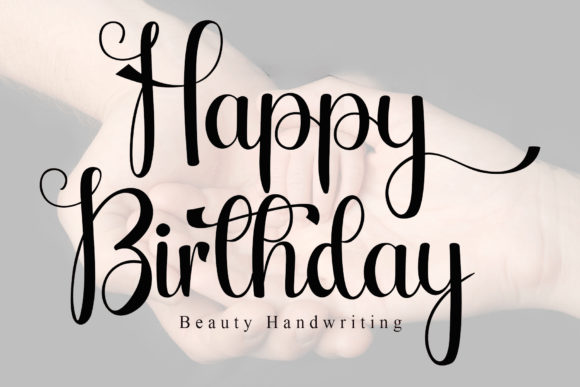
Birthdays, Branding, and Beautiful Typography
As you sit down to plan a friend’s birthday party, you start brainstorming ideas for the perfect invitation. The color scheme, the design, the font – every detail matters. And then it hits you: the perfect font to make your invitation stand out. That’s when you stumble upon the Happy Birthday Font, a quirky and elegant handwritten font that’s sure to make your design pop.
The Happy Birthday Font is a versatile and modern font that’s perfect for logos, branding, invitations, stationery, wedding designs, social media posts, and much more. Its classy and elegant look makes it a valuable asset for designers looking to add a personal touch to their projects.
Whether you’re a professional designer or a DIY enthusiast, the Happy Birthday Font is a great addition to your typography toolkit. With its unique and playful style, you’ll be able to create designs that are both memorable and beautiful.
Key Features of “Happy Birthday Font”
- Font Style: A playful, cursive script font designed specifically for birthday celebrations.
- Unique Characteristics: Features swashes, flourishes, and other decorative elements that add a touch of elegance and whimsy to birthday messages.
Happy Birthday Font Review
When I first laid eyes on the Happy Birthday Font, I was immediately drawn to its playful and cheerful vibe. ✨ The font’s cursive script and bold lettering make it perfect for creating eye-catching birthday invitations, party decorations, and social media posts. It’s a great choice for anyone looking to add a pop of personality to their designs.
One of the standout features of the Happy Birthday Font is its versatility. ✨ It can be used for both digital and print designs, making it a great option for creatives who work in a variety of mediums. Additionally, the font is highly customizable, allowing users to adjust the size, color, and spacing to fit their specific needs.
- ⚠️ The font may be too loud or overbearing for some designs, so it’s essential to use it in moderation.
- ⚠️ Some users may find the font’s script-style letters to be difficult to read at small sizes.
Overall, the Happy Birthday Font is a fun and engaging choice for anyone looking to add a celebratory touch to their designs. While it may have some limitations, its playful personality and versatility make it a great addition to any creative’s toolkit.